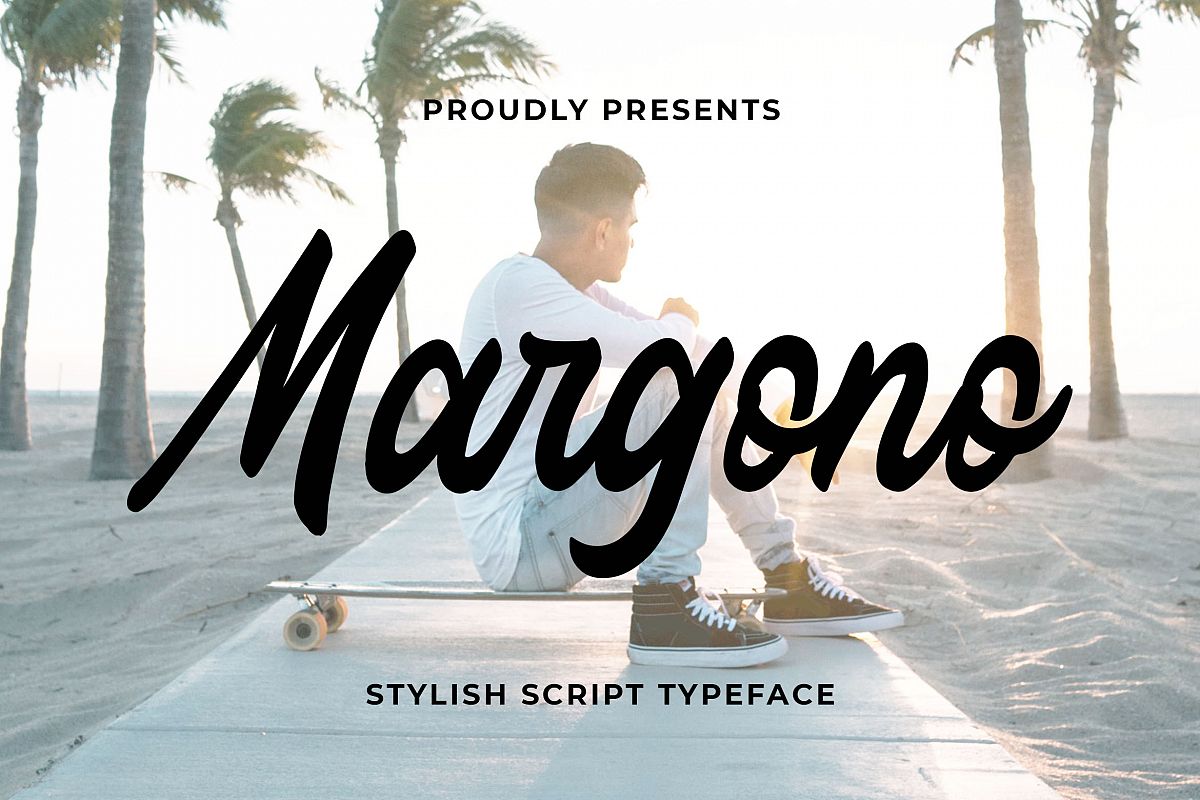
Introducing of our new product the name Margono Stylish Script Font. Margono made with brush into digital this font is a fun theme very good for signature, poster, branding, logotype etc
MULTILINGUAL ACCENT :
ŽžŠŒšŸÀÁÂÃÄÅÆÇÈÉÊËÌÍÎÏÐŁÑÒÓÔÕÖØÙÚÛÜÝßàáâãäåæçèéêëìíîïłñòóôõöøùúûüýÿ
FEATURES :- Uppercase